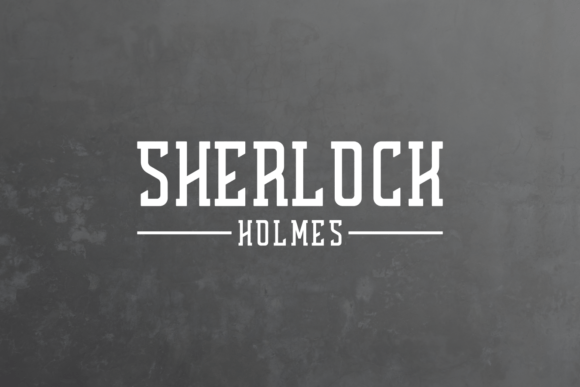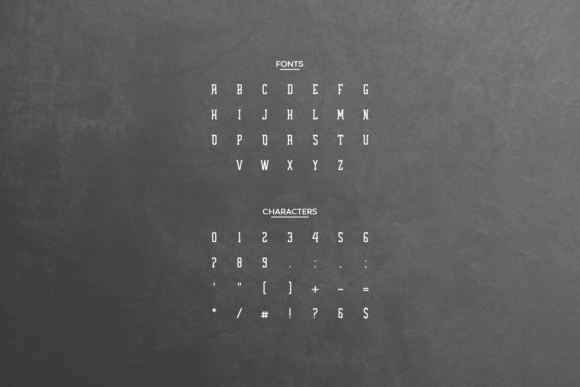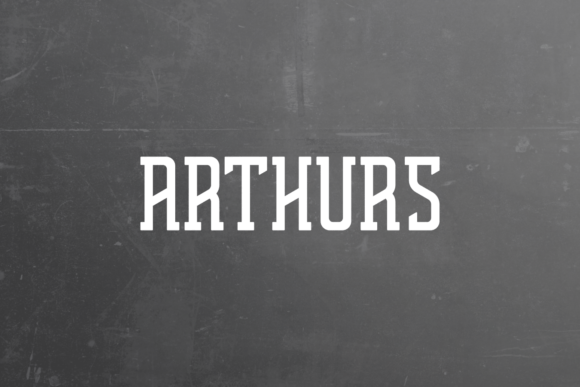
Introduction to Rebrepa Font
Have you ever stared at a blank canvas, waiting for the perfect font to bring your creative project to life? As designers, we’ve all been there – searching for that elusive combination of style and functionality to elevate our designs. For those moments, we’re excited to introduce the Rebrepa Font, a versatile and sophisticated serif font that’s perfect for headlines, branding, and logo designs.
With its simple yet modern and elegant look, the Rebrepa Font is a valuable resource for designers looking to add a touch of sophistication to their work. Its smooth angular shape makes it a standout choice for creative projects, and its high quality makes it perfect for print and digital applications.
Honest Review: Rebrepa Font
I recently stumbled upon the Rebrepa Font, and I’m excited to share my honest thoughts on this design resource. As a designer, I appreciate high-quality fonts that can elevate a creative project and make it stand out.
Here are some aspects where the Rebrepa Font shines: ✨
- Unique and stylish design: The Rebrepa Font has a distinctive look that’s perfect for adding a touch of elegance to your designs.
- High quality: The font is crisp and clear, making it ideal for both digital and print projects.
However, I did encounter some limitations: ⚠️
- Limited character set: The Rebrepa Font only includes a limited character set, which may not be suitable for all types of projects.
- No transparent background: The font doesn’t support transparent backgrounds, which may limit its use in certain design scenarios.
Overall, I’m impressed with the Rebrepa Font’s unique design and high quality. While it has some limitations, it’s still a great addition to any designer’s toolkit, especially for creative projects that require a touch of elegance.
The Rebrepa Font is a high-quality design resource that offers a unique and creative style. It’s perfect for any project that requires a modern and sleek look.
Tips for Getting the Most Out of Rebrepa Font
To get the most out of the Rebrepa Font, try using it with a transparent background for a more creative look. You can also experiment with different font sizes and styles to create a unique design.
The Rebrepa Font is perfect for any creative project that requires a modern and sleek look. Some common use cases include: